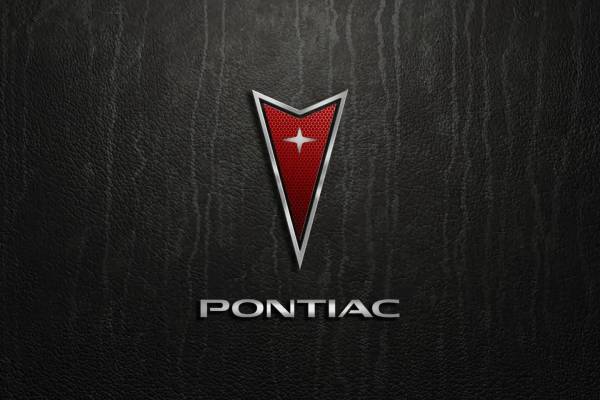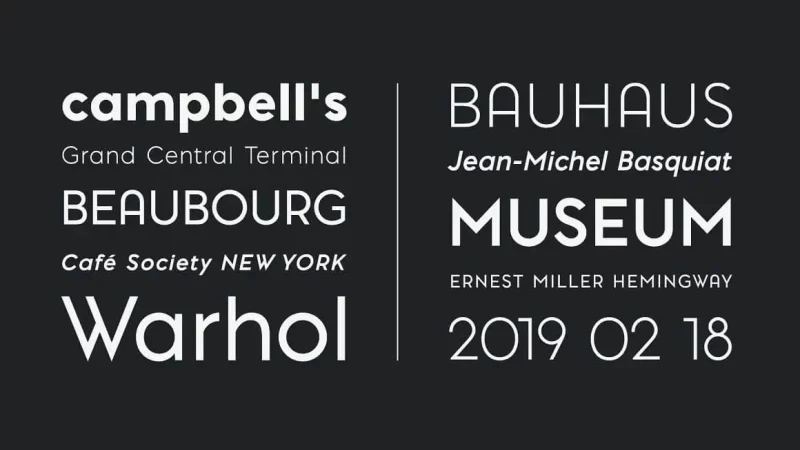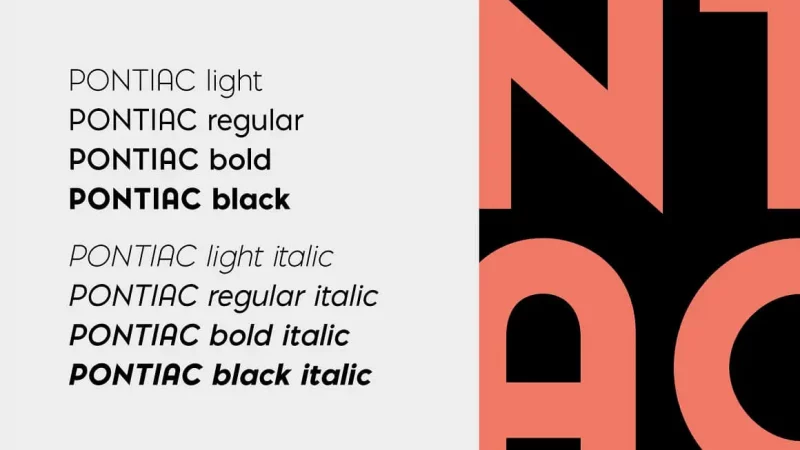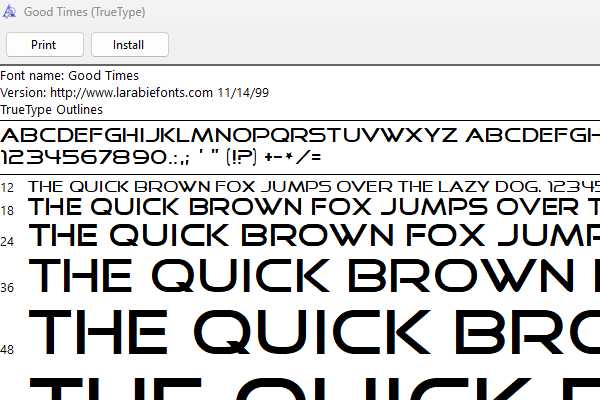
The Pontiac font that is most similar to the official logo of the car manufacturer of the same name is a typeface by the name of Good Times. This font was designed and created by the profilic font author Ray Larabie, and distributed via his Larabie Fonts foundry. It was first released to the general public under a Freeware Font License agreement in November of 1999.
Included with this free TTF font are a full suite of Uppercase and Lowercase letters, and well as Numeric and a limited set of Special Character glyphs. Below is a preview image demonstrating the different design options available:
Another font that uses the same name as this vehicle manufacturer is one that goes by the name of Pontiac Regular. It was designed and created a French font foundry called S&C Type in 2019. The members on the design team for this release include Fanny Coulez and Julien Saurin.
This font is presented in a Sans Serif style, and comes complete with a total of 8 different variations including:
If you are looking for bold uppercase lettering for your science and technology project, then you have come to the right place! An ultramodern techno display typeface, the Pontiac font gives off a scientific and funky feeling that brings life into your art pieces. It is unique with its disconnected strokes, and its stable letters and thick, clean lines make it legible and flawless when put on presentations, social media posts, postcards, calendars, business cards, t-shirts, flyers, brand logos, and many more. Explore the Pontiac font now and turn your designs into a winner in more ways than one!